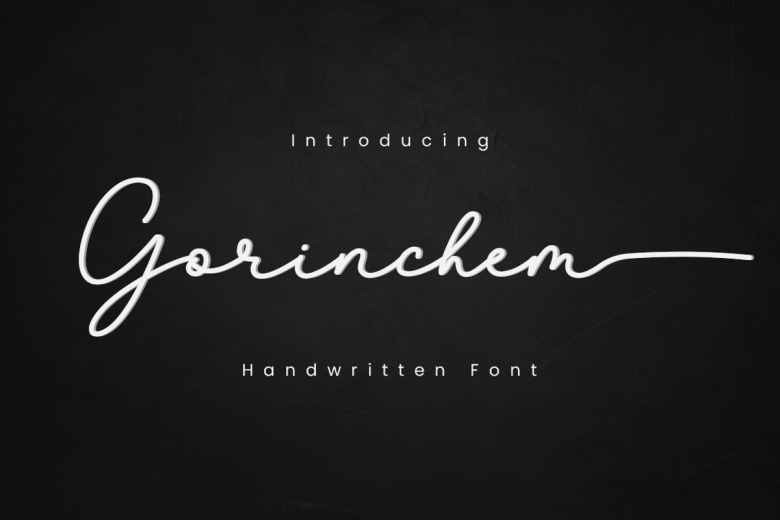
Gorinchem Handwritten Signature Font
Gorinchem Signature Script is a handwritten font created in monoline styles. This font has a playful style but it is even more so to use it with a nuance of an elegant style, the font has a swash feature in the lower case, because this font is made in a simple style but looks beautiful, cool, and many others.